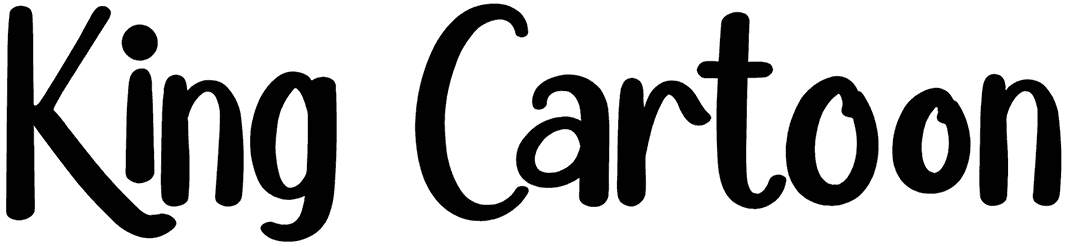
King Cartoon Font
Want to turn any design space into your territory and rule it? King Cartoon is a gift for you. You can use this cartoon font anywhere you need an informal atmosphere and be amazed by the result.
Even in the absence of numbers, this fancy font has enough power to attract the audience and can bring you an authentic touch with minimal aesthetics. By using King Cartoon, you can transform and improve your posters, advertisements, packaging, and clothing into ongoing work.